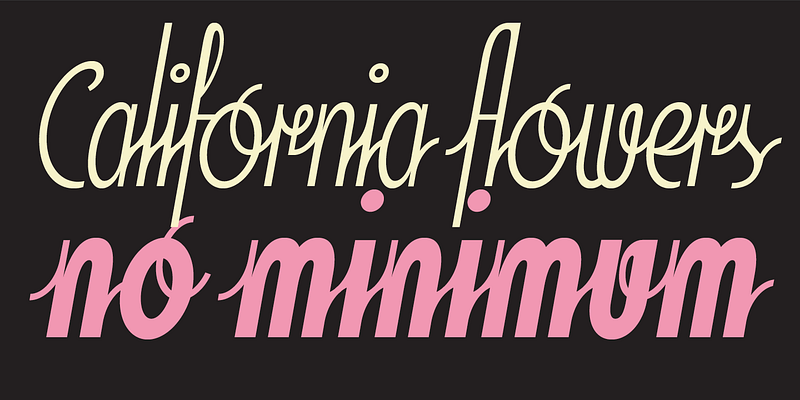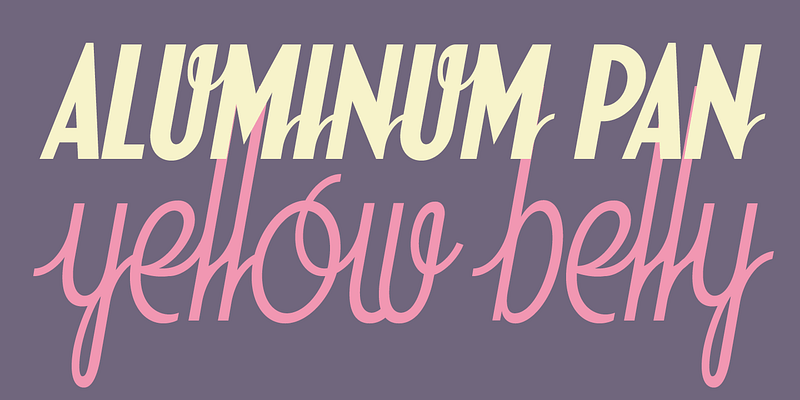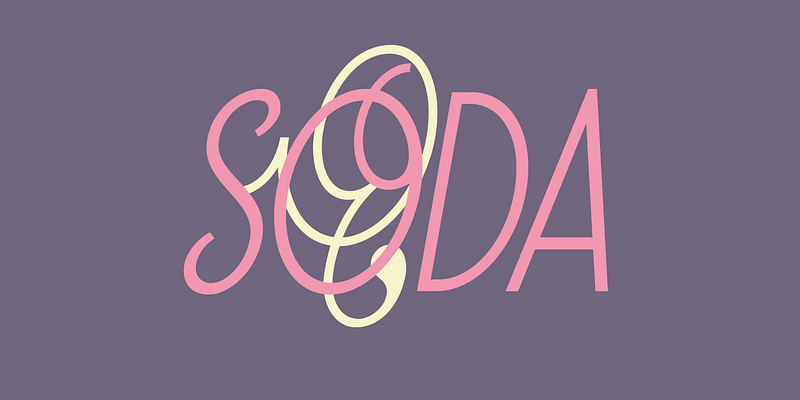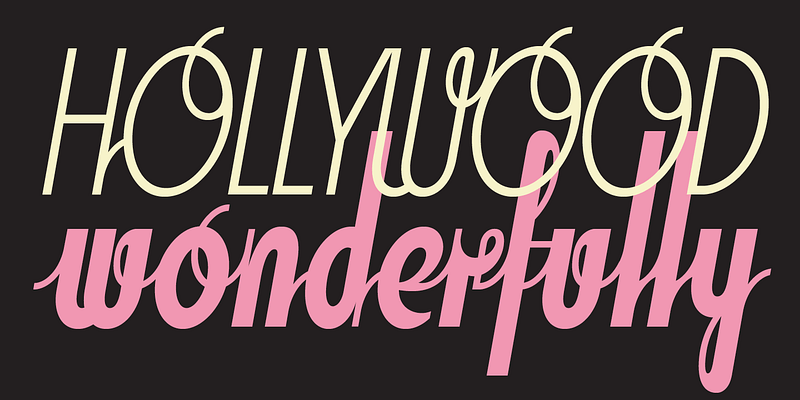
This connecting script includes various ornaments that can be combined into patterns to form borders or other graphic elements. The ornaments can also function as flourishes when added to any text set in Soda Script. There are also 17 repeating elements. Any of these can be combined to form a connected pattern. Mixing elements from the light and bold versions will add variety of density.